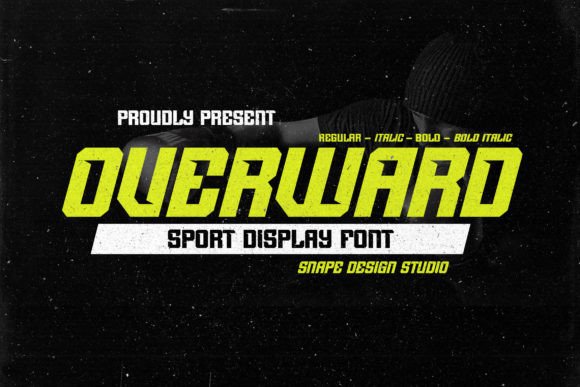
Get ready to unleash the power of Overward Font, the ultimate display font that embodies the very essence of sports and athleticism. This dynamic creation by snapedsgn is a captivating fusion of bold lines and unique shapes, propelling your designs to new heights.
Overward Font boasts a captivating personality that commands attention with its sharp angles and striking letterforms. Its energetic vibe is tailor-made for sports logos, jerseys, and any project seeking a bold and spirited identity.
Immerse yourself in the exhilarating world of sports as Overward Font takes your designs to the next level. Whether you're a seasoned professional or just starting your journey, this font will ignite your creativity and leave a lasting impression.
Don't settle for ordinary fonts. Embrace the dynamism of Overward Font today and watch your designs soar with confidence and energy. Unlock the true potential of your creative vision and make a statement that resonates with the power and passion of sports.